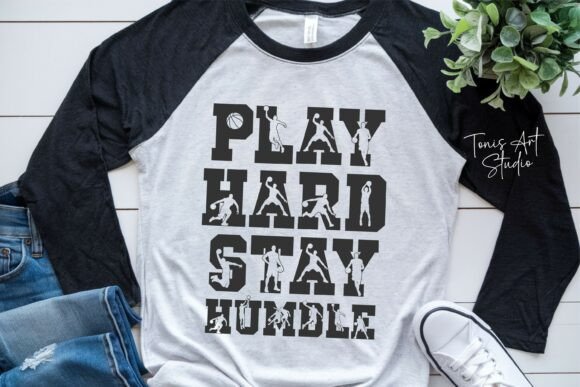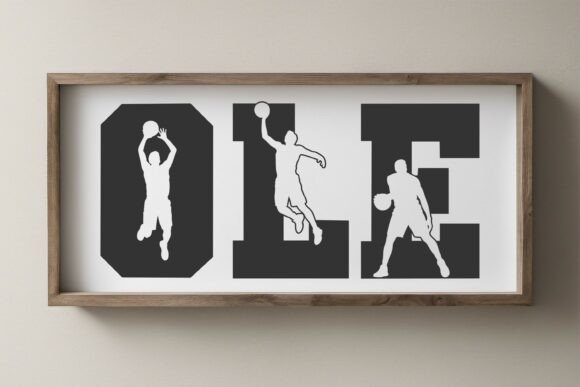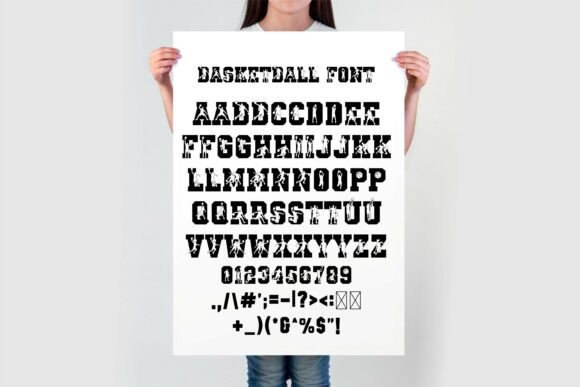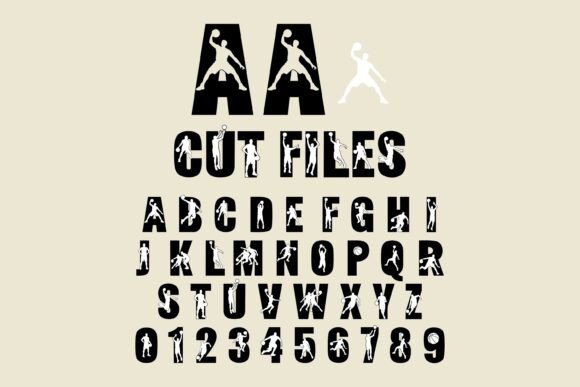
Celebrate the Spirit of the Game with Basketball Varsity Font
Are you a sports enthusiast, a designer, or a crafter looking for a unique and thematic typeface to elevate your creative projects? Look no further than the Basketball Varsity font, a clever and highly specialized display typeface that brings the excitement of the game to life. In this article, we’ll dive into the features and benefits of this amazing font, and explore how it can help you create standout designs for niche merchandise, event branding, and more.
A Font that’s a Slam Dunk
The Basketball Varsity font is a one-of-a-kind typeface where every letter is a literal “player” on the court. Each character is integrated with a unique silhouette of a basketball player in action – slam dunking, dribbling, or shooting – making it the most thematic choice for sports-related creative work. The font’s bold, blocky letterforms echo the classic collegiate “Varsity” style, providing a sturdy framework for the athletic imagery within.
Designed for Fans, Teams, and Brands
The Basketball Varsity typeface is designed for anyone who lives and breathes the court – fans, teams, and brands alike. Whether you’re creating merchandise for a school team, designing posters for a tournament, or crafting custom apparel for a sports enthusiast, this font is the perfect choice. Its unique and recognizable style instantly communicates the theme of your project, eliminating the need for extra illustrations.
Niche Merchandise and Event Branding
The Basketball Varsity font is an absolute powerhouse for niche merchandise and event branding. Use it to create standout t-shirt designs, jerseys, and tournament posters that will grab attention and showcase your team’s spirit. The font’s versatility and thematic design make it perfect for a wide range of applications, from professional sports teams to amateur leagues and school teams.
Perfect for DIY Crafters
The Basketball Varsity font is also an excellent choice for DIY crafters using Cricut or Silhouette machines. The font’s clean lines and bold design make it easy to cut and craft, allowing you to create custom vinyl decals, iron-on designs, and more. With this font, you can take your crafting to the next level and create professional-looking designs that showcase your team’s spirit.
- Unique and thematic design featuring basketball players in action
- Bold, blocky letterforms echoing the classic collegiate “Varsity” style
- Perfect for sports-related creative work, including merchandise, event branding, and more
- Instantly communicates the theme of your project without needing extra illustrations
- Versatile and compatible with various design software and cutting machines
Get Creative with Basketball Varsity Font
With the Basketball Varsity font, the possibilities are endless. Here are some ideas to get you started:
- Create custom t-shirt designs for your school team or sports league
- Design tournament posters and flyers that showcase your team’s spirit
- Craft custom vinyl decals and iron-on designs for water bottles, laptops, and more
- Develop a unique brand identity for your sports-related business or organization
The Basketball Varsity font is a game-changer for designers, crafters, and sports enthusiasts alike. Its unique and thematic design, bold letterforms, and versatility make it the perfect choice for a wide range of creative projects. Whether you’re creating merchandise, event branding, or custom apparel, this font is sure to score a slam dunk. So why wait? Get creative with the Basketball Varsity font today and celebrate the spirit of the game!